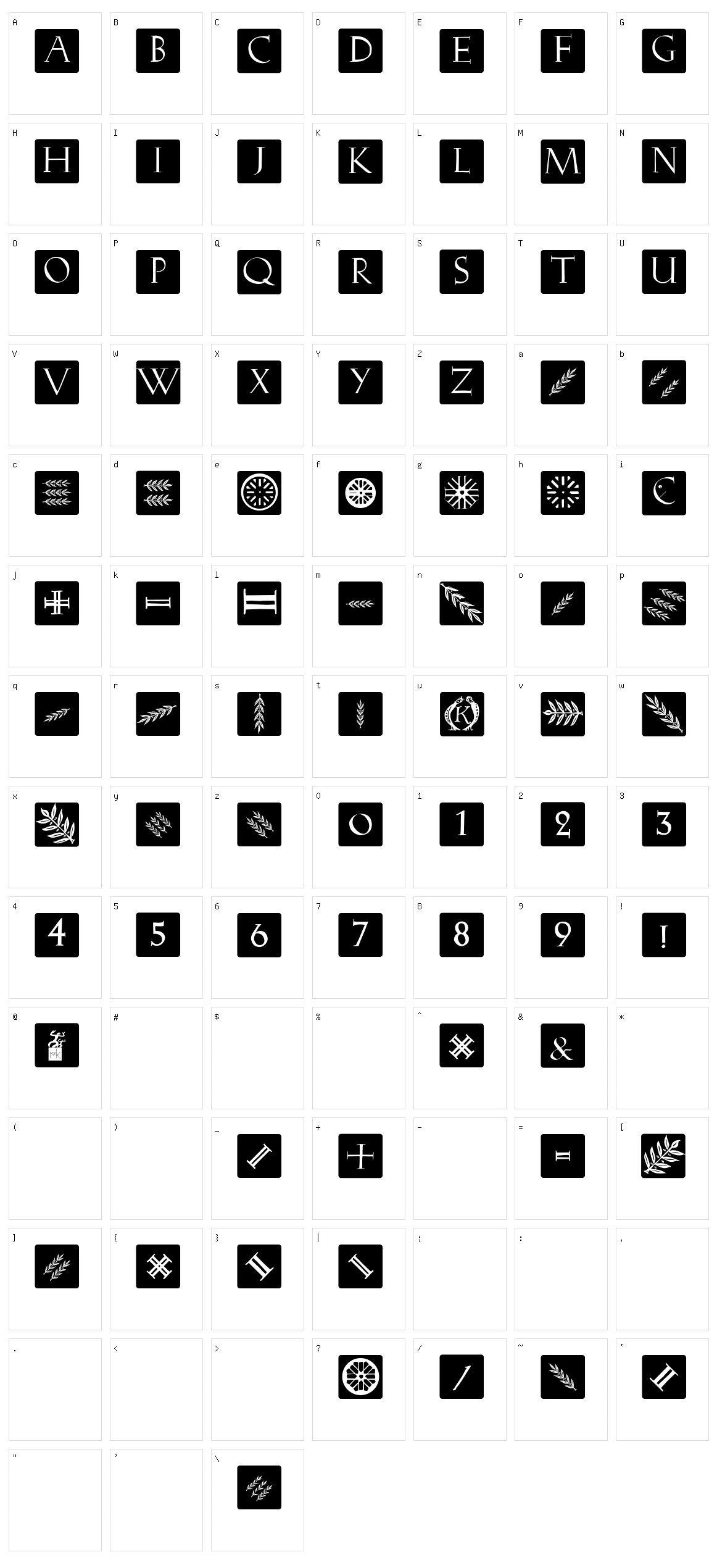
The free font Romana Caps Classic Squares is carefully designed by Manfred Klein, showcasing a thoughtful balance of creativity and usability and falls under the Roman-Greek font style. When you download the ZIP file, it contains only 55.86 KB of font files, making it lightweight and quick to download. Please review the license details below to understand permitted usage and distribution rights. If license information is not available, we recommend using this font for personal projects only or contacting the author directly for commercial usage permissions.